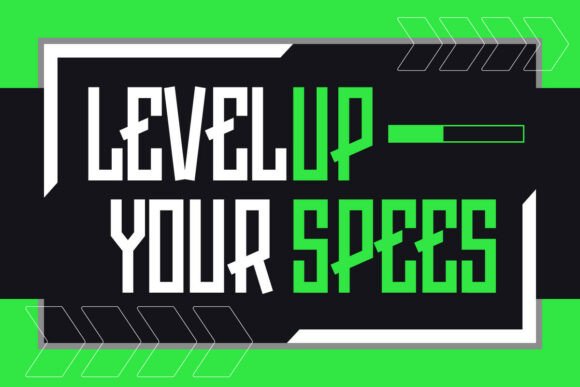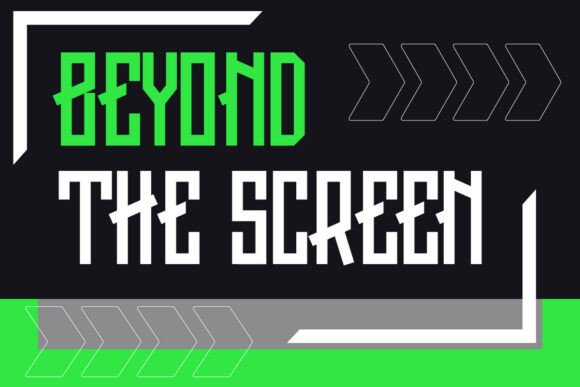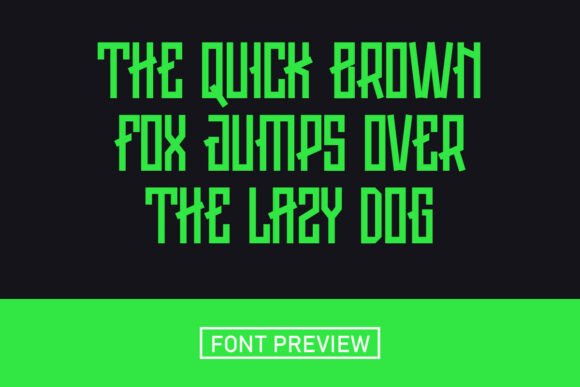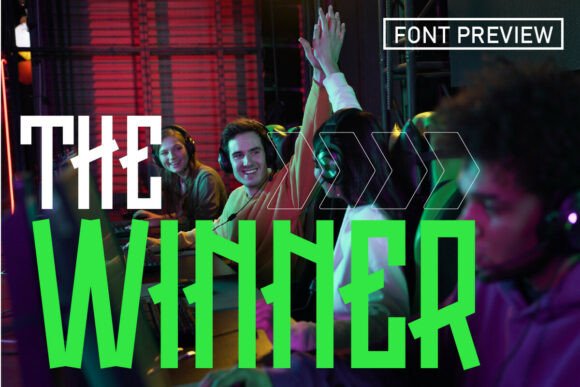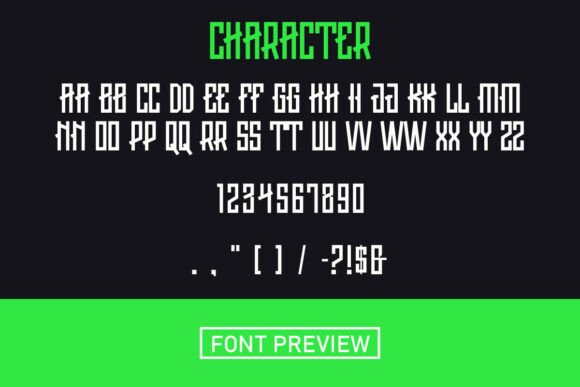
Introduction to Regarding Esports Font
Regarding is a sharp and modern esports display font designed for competitive energy and bold visual impact.
With angular letterforms, futuristic geometry, and aggressive flair, itโs built to dominate logos, gaming streams, team branding, posters, and digital artwork Perfect for esports teams, Twitch overlays, tournament titles, and high-tech designs, Regarding captures the speed, precision, and confidence of modern gaming culture.
Key Features of Regarding Esports Font